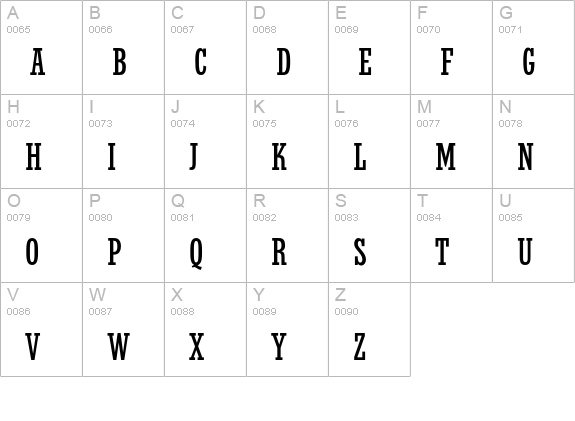
StymieEF-MediumCondensed Font Details
StymieEF-MediumCondensed font is a sleek and modern typeface that exudes sophistication and elegance. Its condensed design allows for maximum impact while maintaining readability, making it perfect for headlines, titles, and other display purposes. The clean lines and sharp edges of this font give it a contemporary feel that will elevate any project it is used in. The versatility of StymieEF-MediumCondensed font makes it a valuable addition to any designer's toolkit. Whether you are working on branding materials, editorial layouts, or web design, this font will provide a polished and professional look. Best of all, StymieEF-MediumCondensed font is available for free download at FontsMarket.com. This means that you can access this high-quality typeface at no cost, making it a budget-friendly option for your design projects. Don't miss out on the opportunity to enhance your work with this stunning font - download StymieEF-MediumCondensed today!